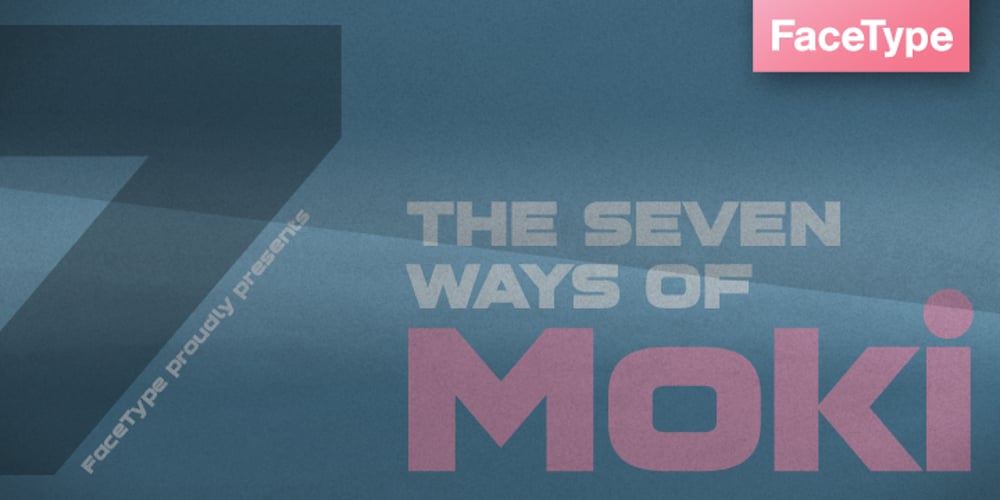
Moki Font Family was designed by Marcus Sterz and published by FaceType. Moki contains 7 styles and family package options. The seven ways of Moki. Moki comes in seven different styles: Base, Cut, Dust, Lean, Mono, Soft and Uni. Moki is a display expert – with a wide range of languages covered, the family offers a style for every purpose. You are a SciFi movie director and are looking for an alternative to the inevitable Eurostile? Now you have!